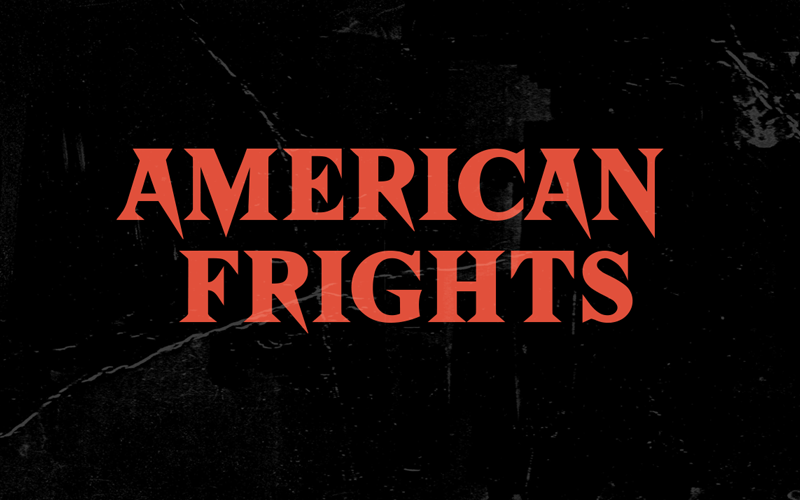
Personal Use Only. Purchase the Commercial License: https://sellfy.com/p/hkjuj6/ About this Font: Purge out the old standard of Serif-based designs. You will never imagine a little sharpening would bring out the most outstanding look of simple things. We present, American Frights! A project study of horror and emotional typeface. Includes: OTF | TTF | WOFF Features: Italic | Multilingual Support | All Caps Thank you. |